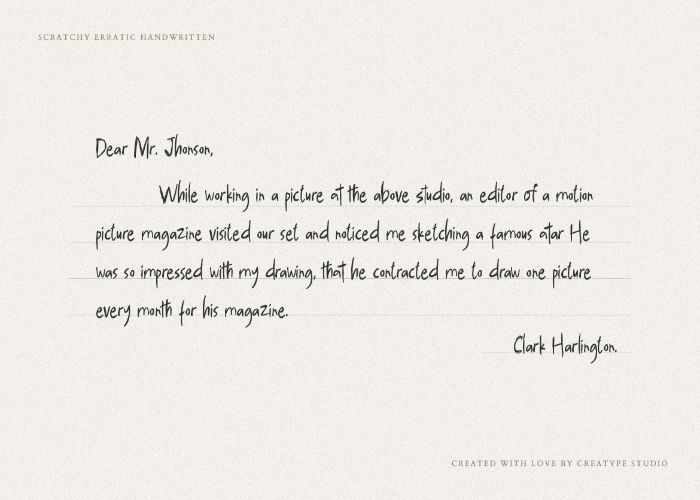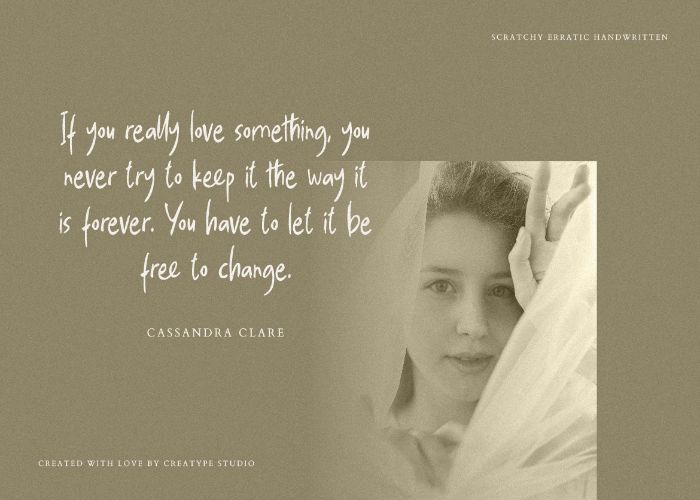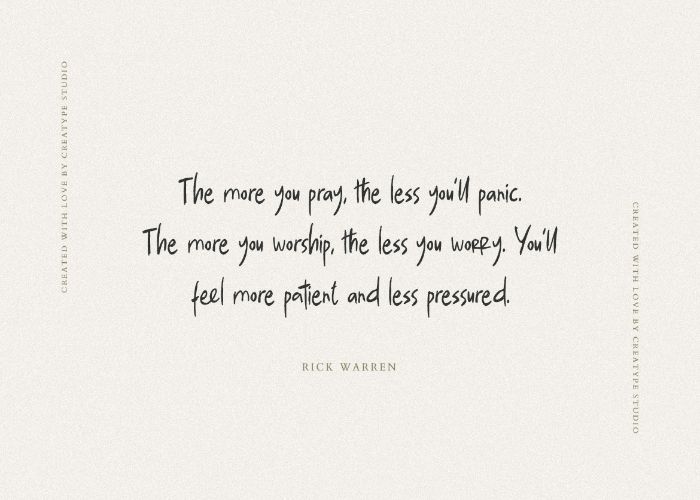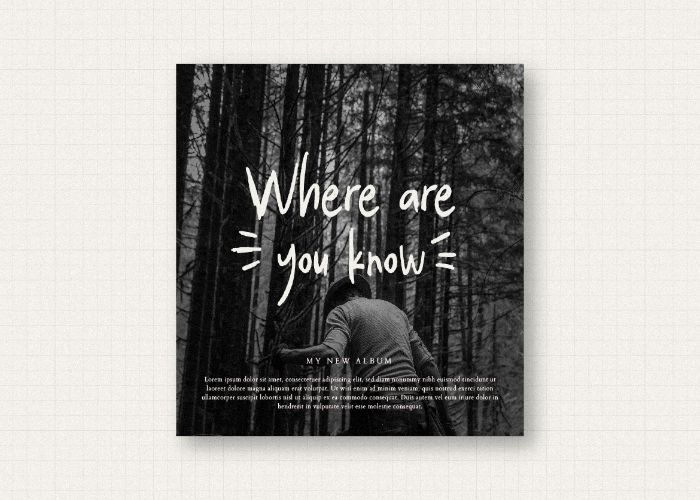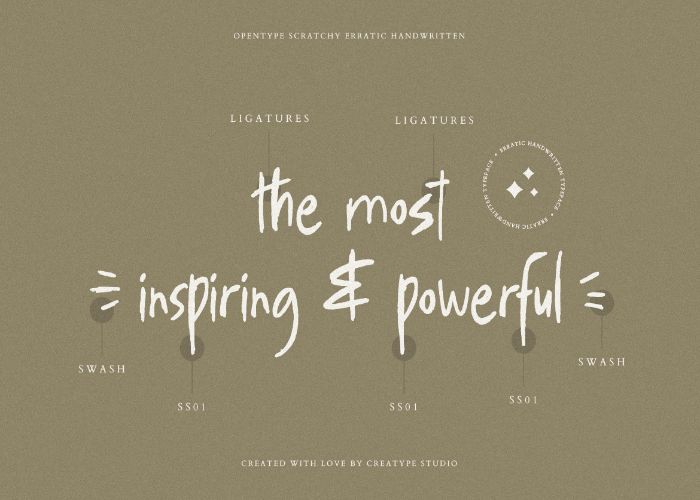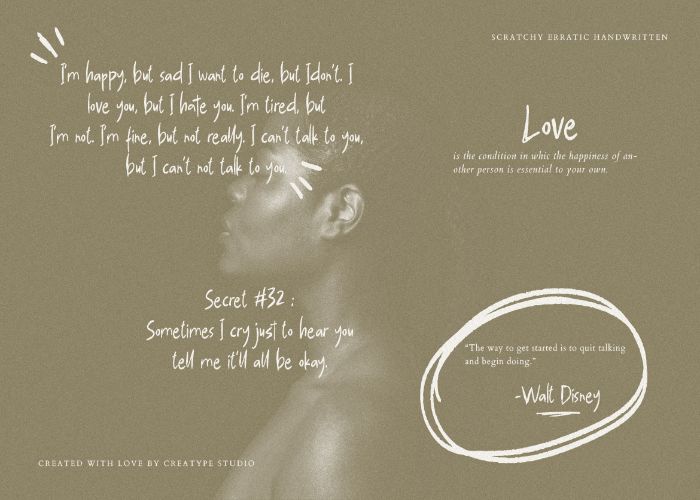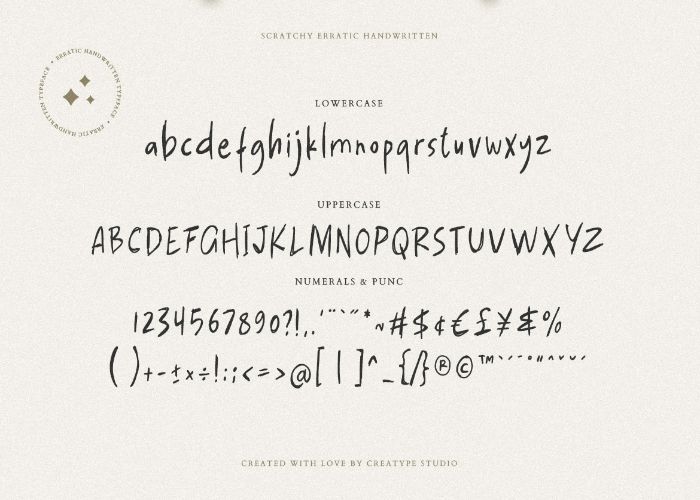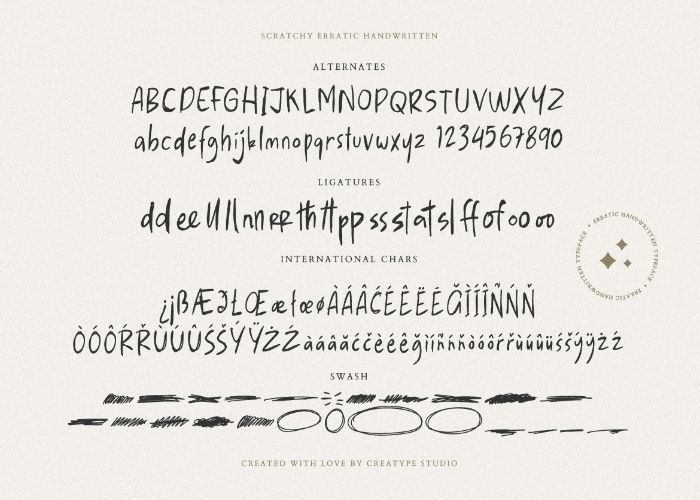
Scratchy Erratic Handwritten Font
Presenting you “The Scratchy Erratic Handwritten Typeface”.  This font has messy and erratic shapes that look realistic and natural. There are many alternatives, ligatures, and swash, to make the most of your designs.
Scratchy is perfect for branding projects, logos, social media posts, advertisements, product packaging, product designs, label, photography, invitation, stationery, and any projects that need handwriting taste.
• ▪️Ton of glyphs
• ▪️Ligature & Alternate
• ▪️Fonts include multilingual     support for Afrikaans, Albanian, Czech, Danish, Dutch, English, Estonian, Finnish, French, German, Hungarian, Italian, Latvian, Lithuanian, Norwegian, Polish, Portuguese, Slovak, Slovenian, Spanish, and Swedish.